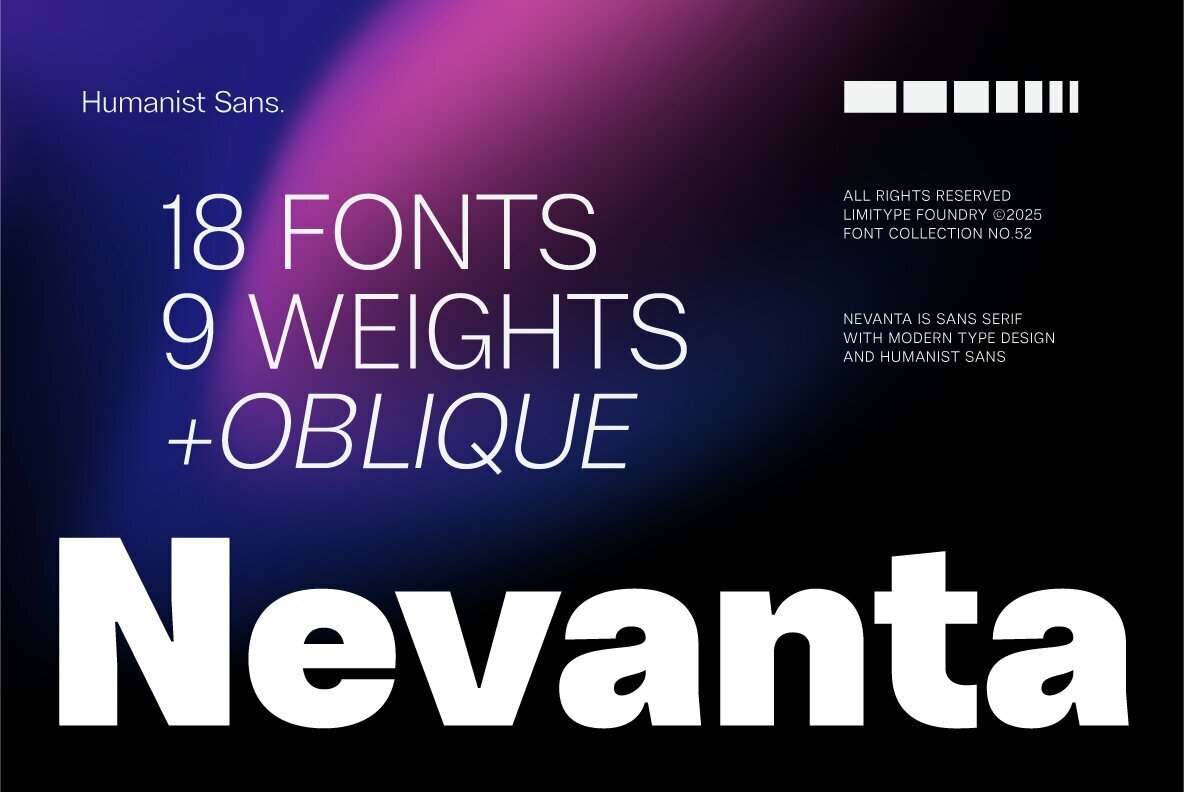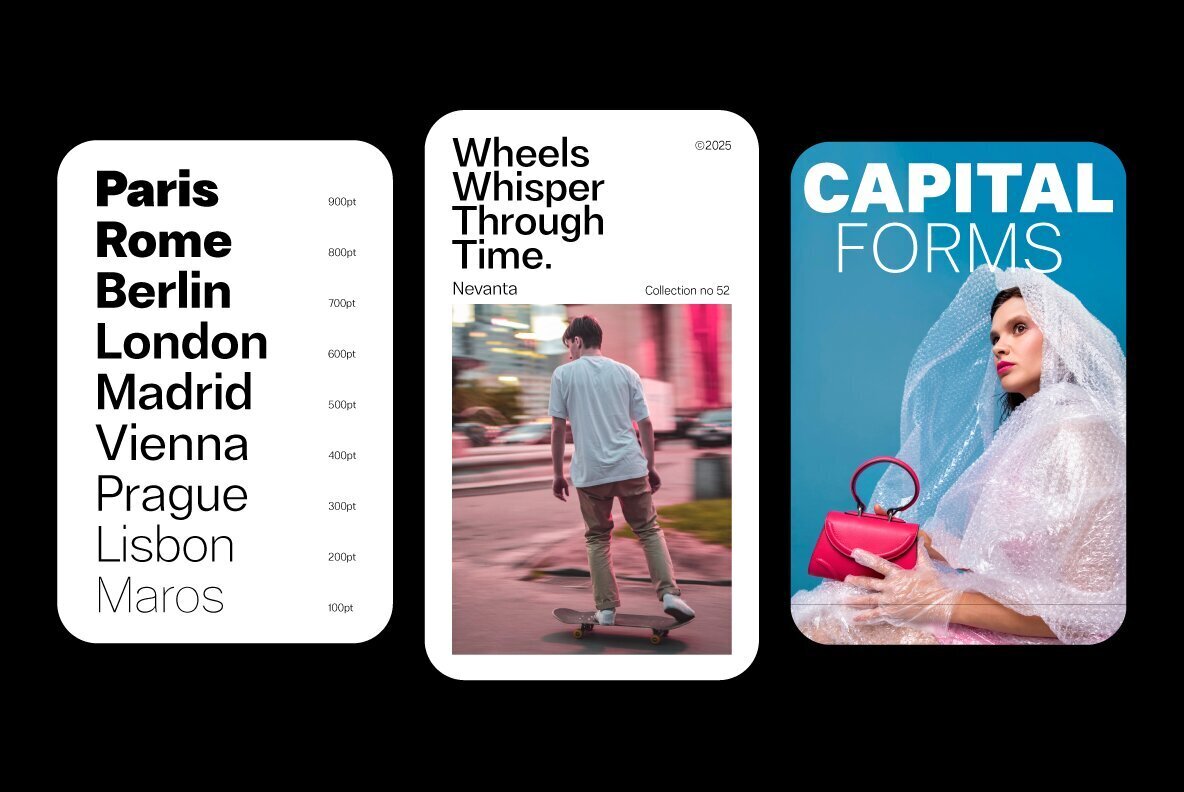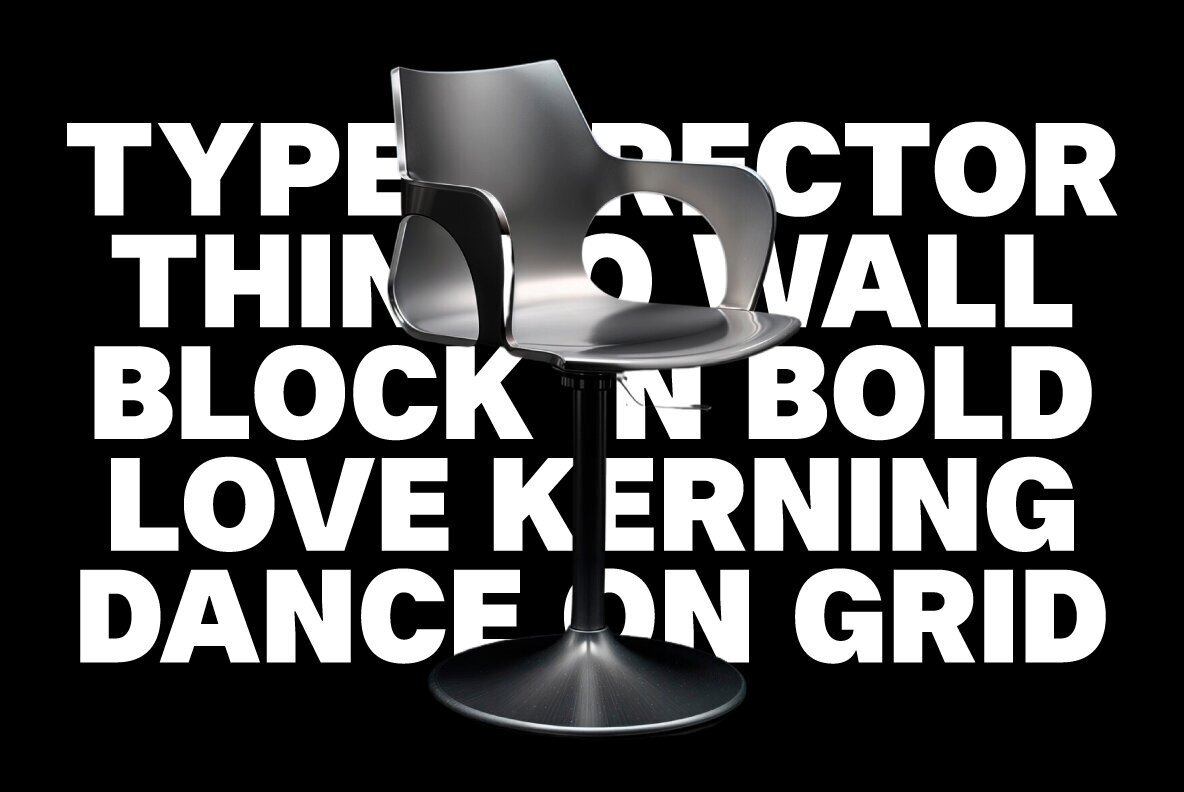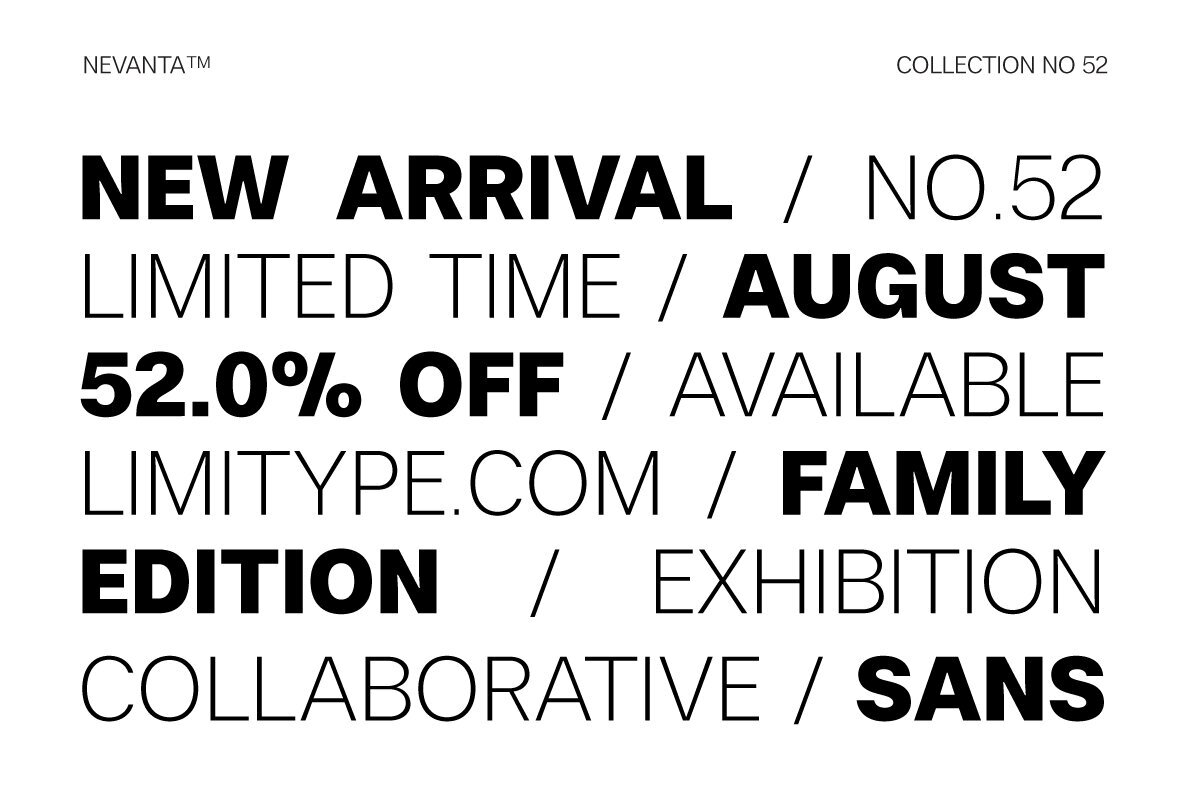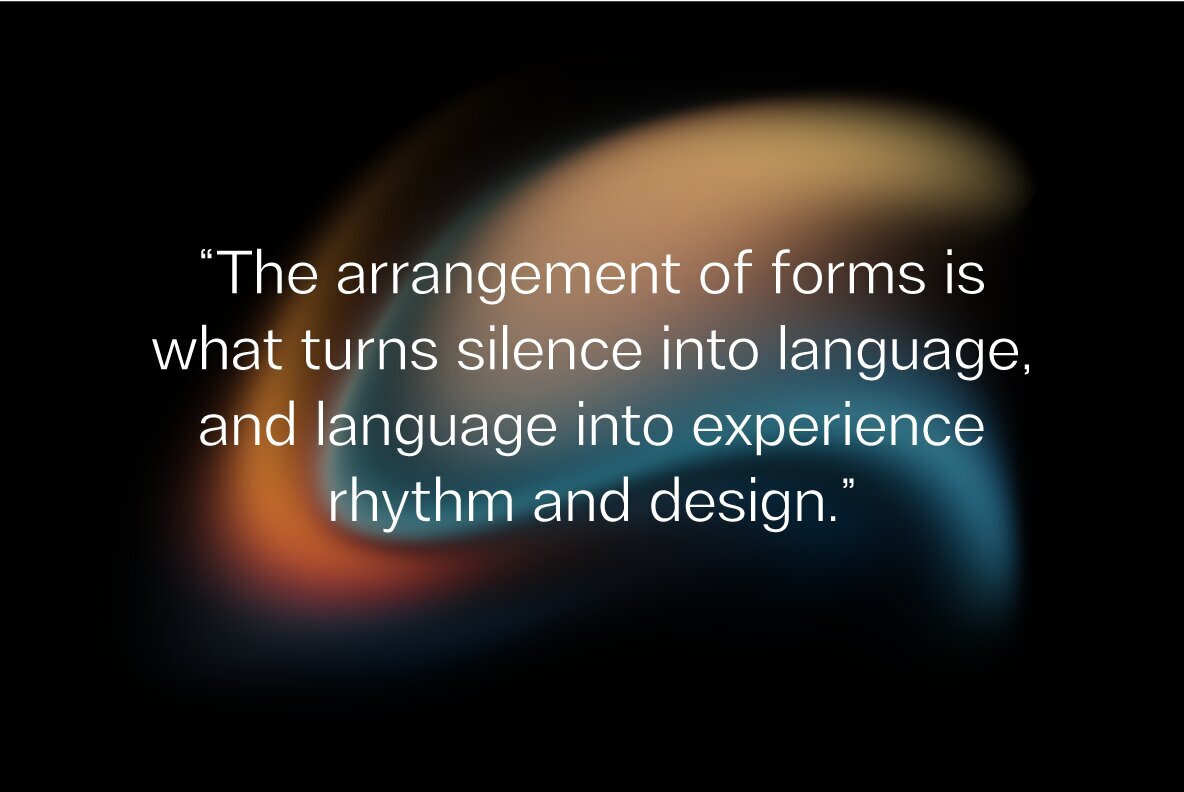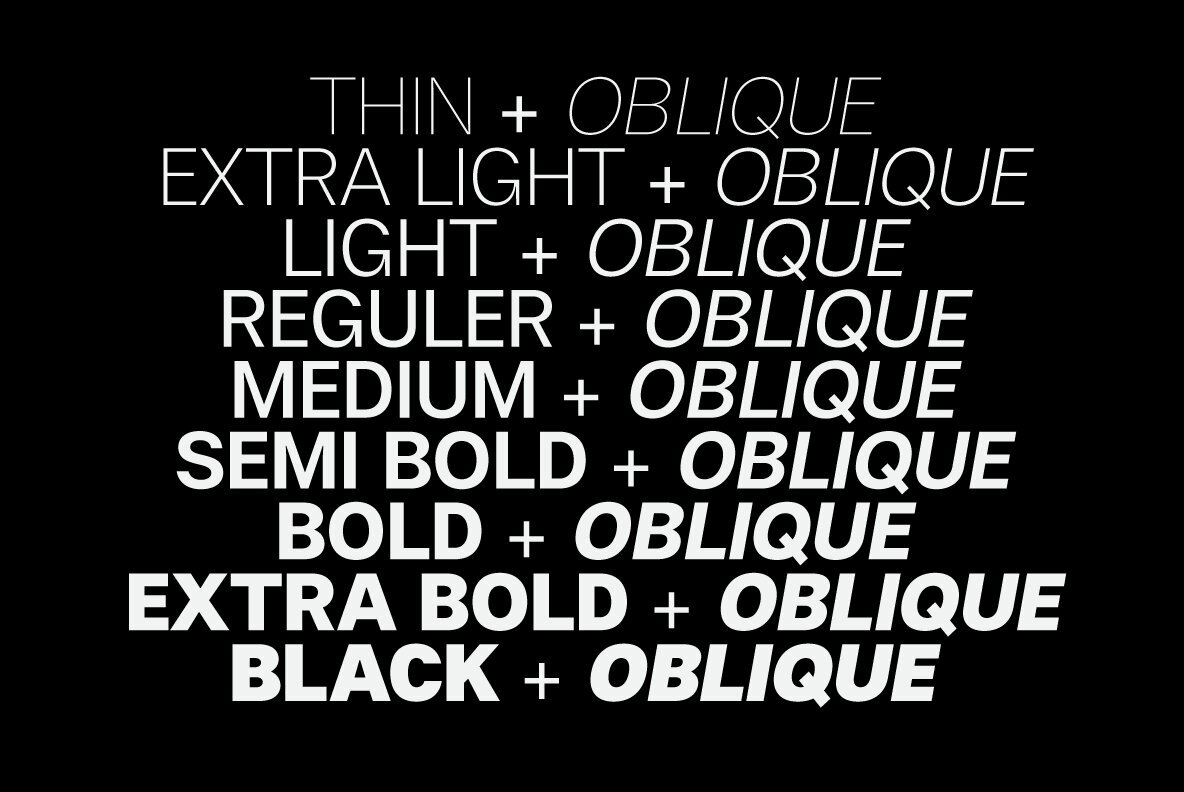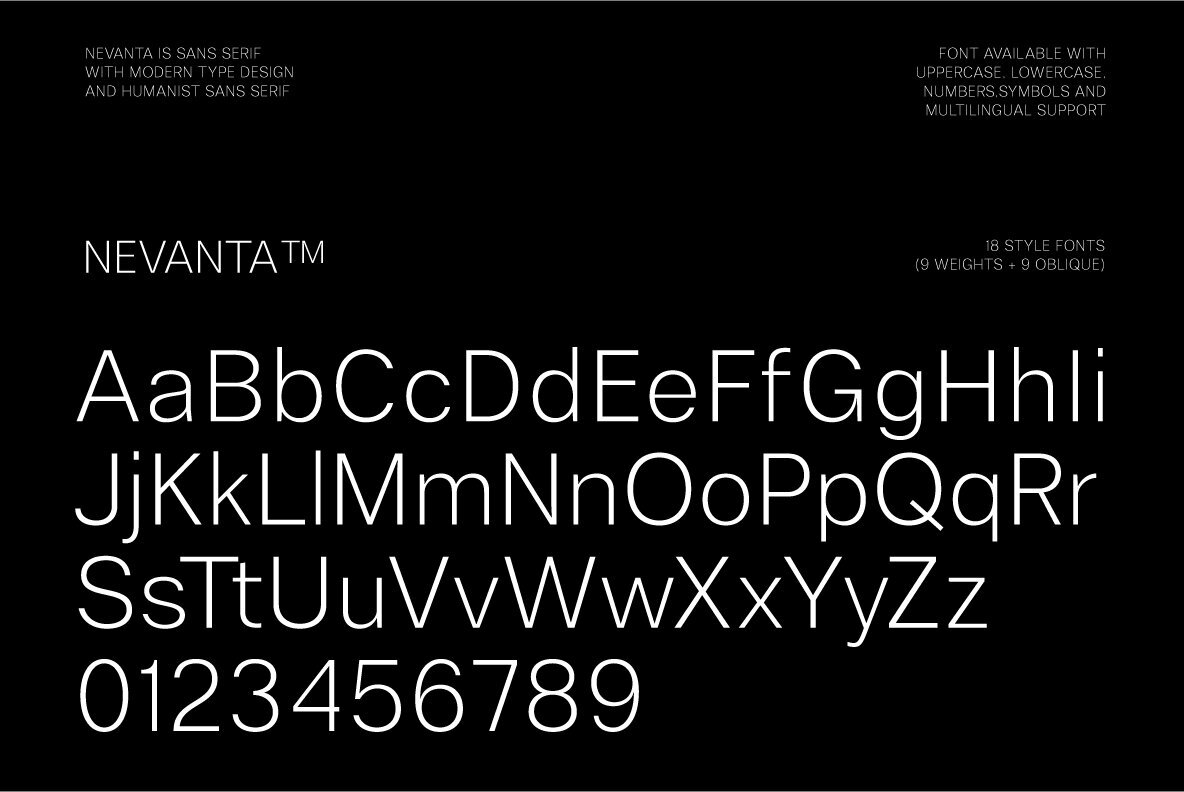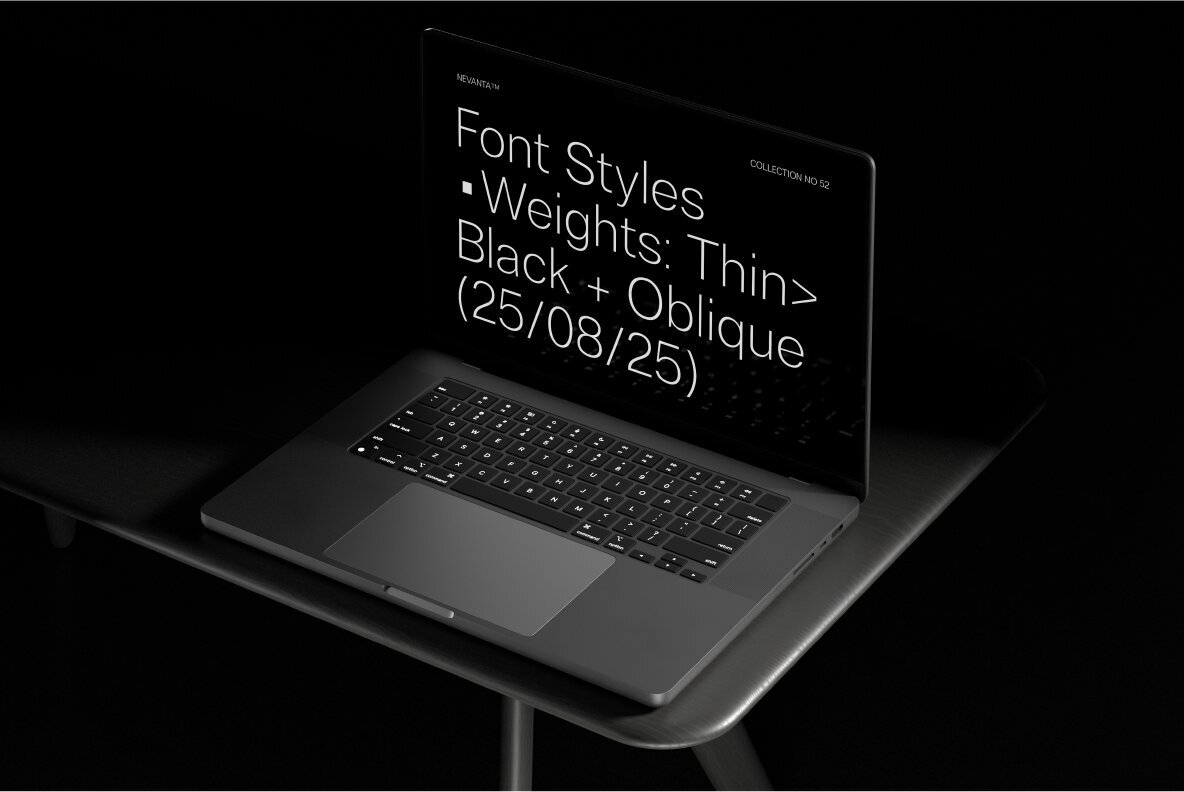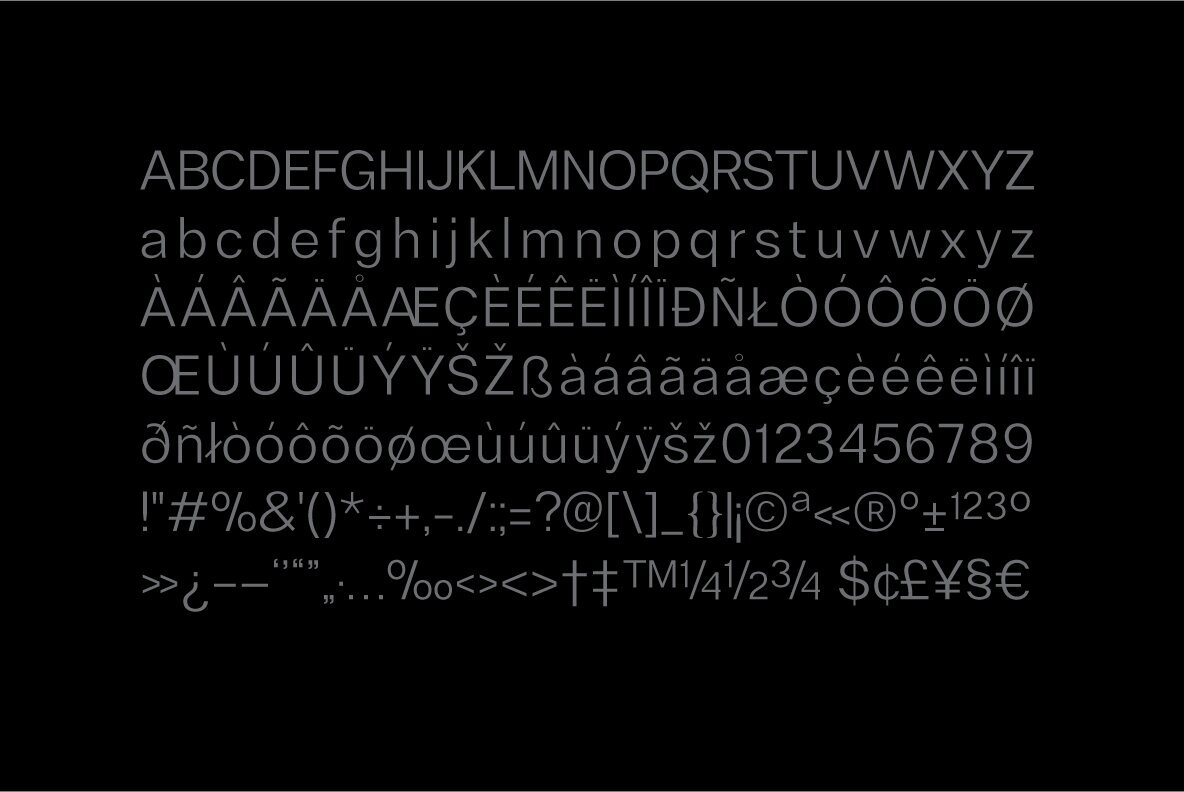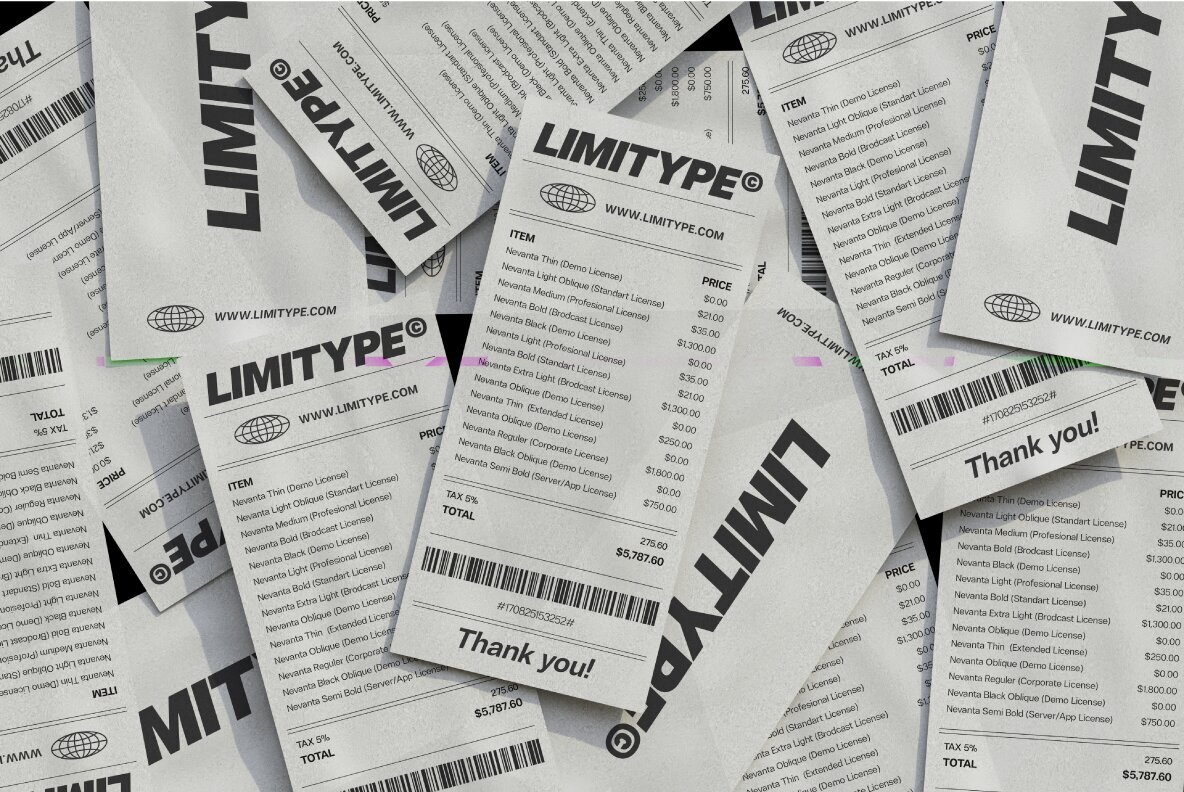
Nevanta Font
Nevanta is a contemporary sans serif font offering 18 different styles, including nine weights and their oblique counterparts. This typeface is crafted with meticulous geometric proportions to ensure outstanding readability and versatility. Whether used in branding, websites, editorials, posters, or corporate identities, Nevanta excels in delivering clean and professional typography. Thanks to its multilingual support, it serves as a comprehensive solution for creative and professional projects alike.Nevanta: A Versatile Sans Serif for Professional Design